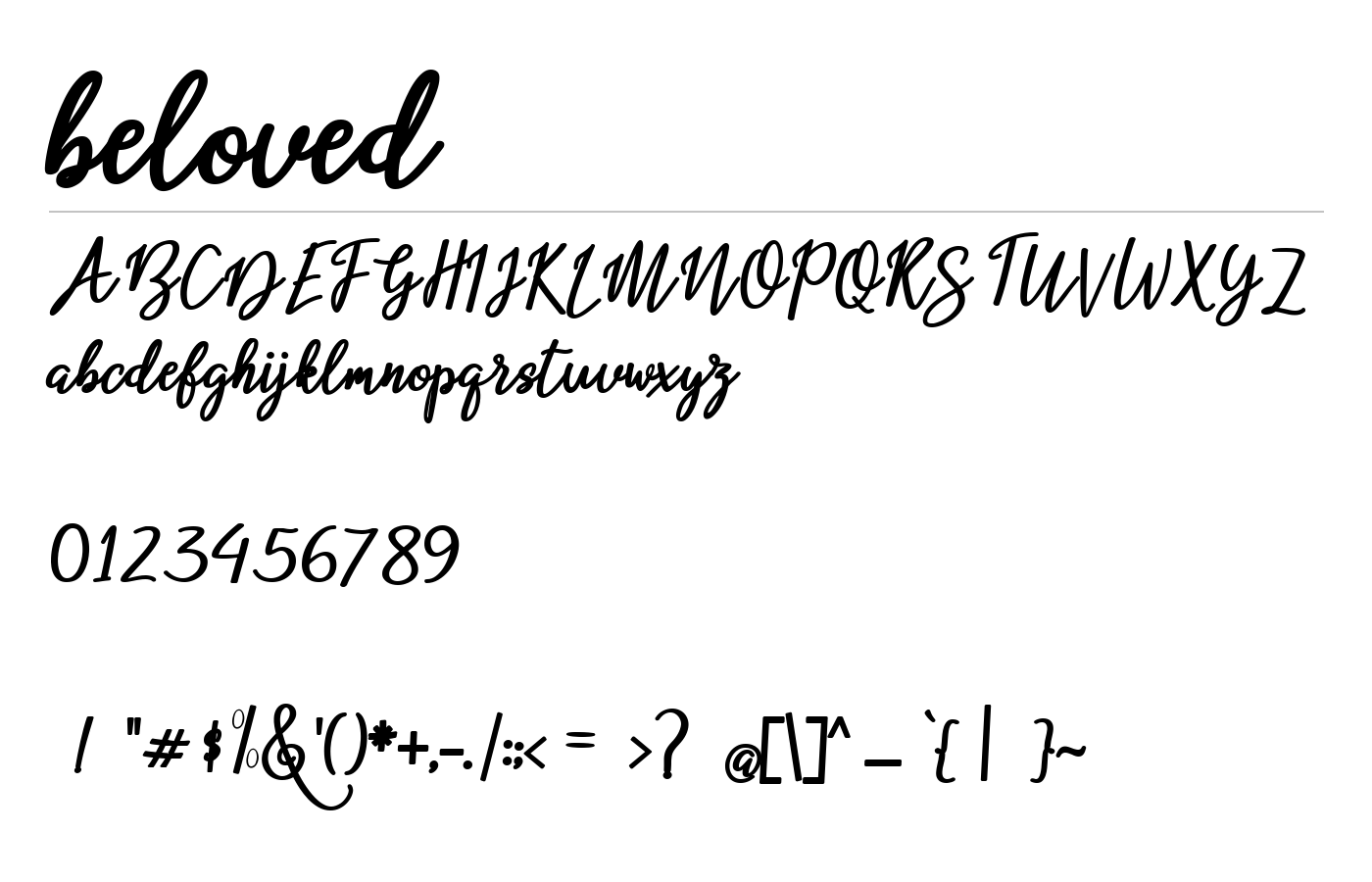
Beloved is a stylish script font with a smooth, flowing appearance, featuring medium weight strokes and a natural, handwritten feel. Its elegant curves and playful letterforms make it perfect for branding, invitations, and creative projects that seek a warm, personal touch. This font works well in headlines and logos, bringing a charming and approachable personality to any design.
beloved Font
About beloved Font
| Designer | mrletters_Muhammad Rizal |